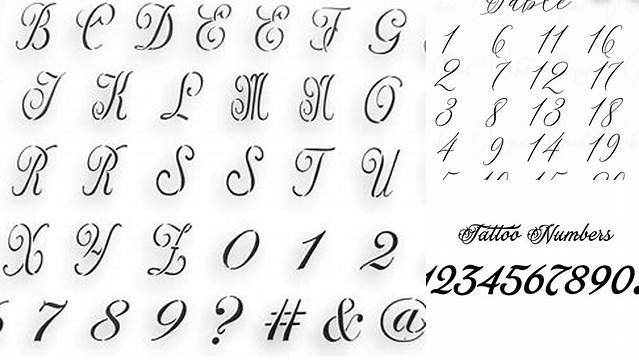
Tattoo Fonts: Cursive Numbers Design Ideas
Hey guys! Planning to get inked? Choosing the right tattoo fonts cursive numbers is crucial to making your tattoo stand out. This guide dives deep into everything you need to know, from selecting the perfect font style to understanding the nuances of cursive numbers in tattoo designs. Let’s get started!
1. Understanding the Popularity of Cursive Fonts in Tattoos
Cursive fonts are super popular for tattoos because they bring a touch of elegance and flow. Think about it: a name, a date, or a meaningful quote rendered in beautiful, flowing script—it just adds a certain je ne sais quoi. Cursive fonts mimic handwriting, making each tattoo feel personal and unique. The loops, curves, and connections between letters create a visually appealing design that can be both subtle and striking. When choosing tattoo fonts cursive numbers, consider the overall aesthetic you're aiming for. Do you want something delicate and refined, or bold and eye-catching? The right cursive font can make all the difference. Moreover, cursive fonts allow for creative flourishes and embellishments, adding extra character to your tattoo. Whether it's a simple heart at the end of a word or an elaborate scroll design, cursive fonts offer endless possibilities for personalization. So, if you're looking for a tattoo style that's timeless, elegant, and deeply personal, cursive is definitely the way to go.
2. Selecting the Right Cursive Font for Your Tattoo
Okay, so you're sold on cursive, but how do you pick the perfect font? First, think about readability. A super fancy, swirly font might look amazing, but if nobody can read it, what's the point? Opt for a font that balances aesthetics with clarity. Consider the size of your tattoo as well. A small tattoo needs a simpler font, while a larger piece can handle more intricate designs. Also, think about the placement of your tattoo. A cursive font that looks great on your wrist might not work as well on your back. When exploring tattoo fonts cursive numbers, pay attention to the thickness of the lines. Thicker lines tend to hold up better over time, especially for smaller tattoos. Don't be afraid to try out different fonts and see how they look on your skin using temporary tattoos or digital mockups. This will give you a better idea of how the font will appear once it's permanently inked. Ultimately, the right cursive font should reflect your personality and style while remaining legible and visually appealing.
3. The Significance of Numbers in Tattoo Designs
Numbers in tattoos often carry deep personal meaning. Think about important dates—birthdays, anniversaries, or even significant historical events. Using tattoo fonts cursive numbers can add an extra layer of sophistication to these dates, transforming them into works of art. Numbers can also represent lucky numbers, significant ages, or even coordinates of a special place. The beauty of using numbers is their versatility; they can be incorporated into various designs, from minimalist styles to elaborate compositions. When choosing to include numbers in your tattoo, consider the context and how they relate to the overall design. Do they stand alone as the focal point, or do they complement other elements like names or symbols? The font you choose for your numbers should harmonize with the rest of the tattoo, creating a cohesive and visually pleasing result. Whether you're commemorating a loved one or celebrating a personal milestone, numbers offer a powerful way to tell your story through ink.
4. Cursive Numbers: A Stylish Alternative to Traditional Numerals
Let's be honest, regular numbers can sometimes look a bit plain. Cursive numbers, on the other hand, add a touch of flair and individuality to your tattoo. Instead of boring, blocky numerals, you get elegant, flowing shapes that are much more visually interesting. When considering tattoo fonts cursive numbers, think about how they can elevate the overall design of your tattoo. Cursive numbers can soften the harshness of traditional numerals, making your tattoo appear more artistic and less utilitarian. They also provide an opportunity to incorporate unique flourishes and embellishments, further personalizing your tattoo. Imagine a Roman numeral date rendered in a beautiful cursive script—it instantly becomes a statement piece. Cursive numbers are perfect for those who want to add a touch of sophistication and creativity to their tattoos, transforming simple numbers into stunning works of art. So ditch the boring numerals and embrace the beauty of cursive!
5. Combining Cursive Fonts and Numbers Effectively
Okay, now for the tricky part: combining cursive fonts and numbers in a way that looks amazing. The key is balance. You don't want the font and numbers to clash or compete for attention. Instead, they should complement each other, creating a harmonious and visually appealing design. When using tattoo fonts cursive numbers, consider the size and placement of each element. If you're using a cursive font for a name or quote, make sure the numbers don't overpower it. Conversely, if the numbers are the main focus, choose a font that enhances their impact without being too distracting. Pay attention to the spacing between the letters and numbers. Proper spacing can improve readability and prevent the tattoo from looking cluttered. Experiment with different layouts and arrangements until you find a combination that feels just right. Remember, the goal is to create a tattoo that is both meaningful and aesthetically pleasing, so take your time and don't be afraid to try new things.
6. Popular Cursive Fonts for Tattoos with Numbers
So, what are some popular cursive fonts that work well with numbers? Script fonts like Brush Script, Edwardian Script, and Kaufmann Script are always a hit. They offer a classic, elegant look that's perfect for names, quotes, and dates. For a more modern feel, consider fonts like Lobster, Great Vibes, or Pacifico. These fonts have a playful, contemporary vibe that works well with numbers and other design elements. When choosing tattoo fonts cursive numbers, think about the overall style you're aiming for. A traditional script font might be perfect for a memorial tattoo, while a modern sans-serif font could be ideal for a geometric design. Don't be afraid to mix and match fonts to create a unique and personalized look. Just make sure the fonts you choose complement each other and don't clash. With so many amazing cursive fonts available, you're sure to find the perfect one for your tattoo.
7. The Best Placement Ideas for Cursive Number Tattoos
Where you put your tattoo is just as important as the design itself. For cursive number tattoos, certain placements tend to work better than others. The wrist is a classic choice for smaller tattoos, offering a discreet yet visible location. The forearm is another popular option, providing more space for larger designs and allowing for greater detail. The back of the neck is a great choice for subtle, elegant tattoos, while the ribs offer a larger canvas for more elaborate pieces. When considering tattoo fonts cursive numbers, think about how the placement will affect the overall look of the tattoo. A delicate cursive font might get lost on a busy part of the body, while a bold font could look overwhelming on a smaller area. Consider your personal style and preferences when choosing a placement. Do you want a tattoo that's easily visible, or something more hidden and personal? Ultimately, the best placement is the one that feels right for you and complements your tattoo design.
8. Tips for Ensuring Readability of Cursive Tattoos
We've already touched on this, but it's worth repeating: readability is key! A beautiful cursive tattoo is useless if nobody can decipher it. To ensure your tattoo is legible, start by choosing a font that's easy to read. Avoid overly ornate or intricate fonts that can become blurry over time. When using tattoo fonts cursive numbers, pay attention to the spacing between the letters and numbers. Adequate spacing prevents the tattoo from looking cluttered and makes it easier to read. Consider the size of the tattoo as well. Smaller tattoos need simpler fonts with thicker lines to maintain readability. Finally, choose a skilled tattoo artist who understands how to apply cursive fonts effectively. A good artist can adjust the font size, spacing, and line thickness to ensure your tattoo remains legible for years to come. By following these tips, you can ensure your cursive tattoo is both beautiful and easy to read.
9. The Role of Tattoo Artists in Font Selection
Your tattoo artist is your partner in this process, guys! They have the experience and expertise to guide you in choosing the perfect font for your tattoo. Don't be afraid to ask for their advice and recommendations. A good tattoo artist can assess your skin type, tattoo placement, and design preferences to suggest fonts that will work best for you. They can also provide mockups of different fonts so you can see how they look on your skin before committing to a design. When discussing tattoo fonts cursive numbers, your artist can help you choose a font that complements your skin tone and won't fade or blur over time. They can also advise you on the best size and placement for your tattoo to ensure it remains legible and visually appealing. Trust your artist's judgment and work together to create a tattoo that you'll love for years to come.
10. Maintaining the Beauty of Your Cursive Number Tattoo
So, you've got your awesome new tattoo. Now what? Proper aftercare is essential for maintaining the beauty of your cursive number tattoo. Follow your tattoo artist's instructions carefully, and be sure to keep the tattoo clean and moisturized. Avoid exposing the tattoo to direct sunlight, which can cause fading. When using tattoo fonts cursive numbers, remember that smaller, more intricate designs may require extra care to prevent blurring. Consider using a tattoo-specific moisturizer to keep the skin hydrated and healthy. If you notice any signs of infection, such as redness, swelling, or discharge, contact your tattoo artist or a healthcare professional immediately. With proper care and maintenance, your cursive number tattoo will continue to look stunning for years to come.
11. Exploring Different Styles of Cursive for Number Tattoos
Did you know there are tons of cursive styles? From elegant scripts to bold calligraphy, the options are endless. Each style brings a unique vibe to your tattoo. For instance, a Spencerian script oozes old-world charm, perfect for vintage-inspired designs. Calligraphy, with its thick and thin strokes, adds a dramatic flair. When picking tattoo fonts cursive numbers, explore how each style meshes with your personality and the tattoo's theme. A modern, minimalist design might benefit from a clean, sans-serif cursive, while a romantic piece could shine with a flowing, ornate script. Don't be afraid to mix and match elements to create a truly bespoke tattoo.
12. How to Create a Custom Cursive Font for Your Tattoo
Want something truly unique? Consider crafting your own custom cursive font! This lets you express your individuality in every curve and flourish. Start by sketching out different letterforms, playing with loops, connections, and angles. Think about what makes your handwriting special and incorporate those elements. When designing tattoo fonts cursive numbers, keep readability in mind. Overly complex designs might look cool on paper but can become a blurry mess on skin. Work closely with your tattoo artist to refine your design, ensuring it translates well to a tattoo. They can offer advice on line thickness, spacing, and overall balance. A custom font guarantees a tattoo that's 100% you!
13. The Impact of Line Thickness on Cursive Number Tattoos
Line thickness is a game-changer in tattoo design. Thicker lines tend to hold up better over time, especially on areas prone to fading. They also create a bolder, more defined look. Thinner lines, on the other hand, can add a delicate, elegant touch. When deciding on tattoo fonts cursive numbers, consider the size and placement of your tattoo. A small, intricate design might benefit from thinner lines to avoid looking cluttered. A larger piece can handle thicker lines, adding depth and visual impact. Also, think about your skin type. Thicker lines might be a better choice for oily skin, while thinner lines can work well on drier skin. Your tattoo artist can guide you on the best line thickness for your specific tattoo.
14. Incorporating Symbols with Cursive Number Tattoos
Why not add some extra oomph to your tattoo with symbols? A heart, star, or infinity symbol can amplify the meaning behind your numbers. Imagine a birthday date intertwined with a delicate floral motif or an anniversary etched alongside an infinity symbol. When integrating symbols with tattoo fonts cursive numbers, ensure they harmonize with the overall design. The font, numbers, and symbols should complement each other, creating a cohesive and visually pleasing piece. Consider the size and placement of the symbols. They shouldn't overpower the numbers or make the tattoo look cluttered. A well-placed symbol can elevate your tattoo from simple to extraordinary.
15. Understanding the Longevity of Cursive Tattoo Inks
The type of ink used can significantly impact the longevity of your tattoo. High-quality inks tend to resist fading and blurring better than cheaper alternatives. Black ink generally lasts longer than colored inks, but advancements in tattoo technology have improved the durability of colored inks as well. When discussing tattoo fonts cursive numbers with your artist, ask about the types of ink they use and their reputation for longevity. Also, consider your lifestyle. Sun exposure can accelerate fading, so protect your tattoo with sunscreen. Proper aftercare, including moisturizing and avoiding harsh chemicals, can also help preserve the vibrancy of your ink. A little extra care can keep your cursive number tattoo looking fresh for years to come.
16. Cursive Number Tattoos for Memorials and Remembrance
Tattoos can be a powerful way to honor loved ones who have passed away. Cursive number tattoos, featuring birthdates, death dates, or other significant numbers, can serve as a lasting tribute. The flowing script adds a touch of elegance and reverence to these memorial pieces. When designing tattoo fonts cursive numbers for a memorial, consider incorporating elements that represent the person you're honoring, such as their favorite flower or a meaningful symbol. Choose a font that reflects their personality and style. A well-crafted memorial tattoo can provide comfort and serve as a constant reminder of the love and memories you shared.
17. The Art of Spacing in Cursive Number Tattoo Designs
Spacing is crucial for readability and visual appeal. Too little spacing can make your tattoo look cluttered and difficult to decipher. Too much spacing can make it look disjointed. The key is to find the perfect balance. When designing tattoo fonts cursive numbers, pay close attention to the spacing between the letters, numbers, and any accompanying symbols. Ensure that each element has enough breathing room to stand out without being isolated. Your tattoo artist can help you adjust the spacing to achieve the desired effect. Proper spacing can transform a good tattoo into a great one.
18. How Skin Tone Affects the Appearance of Cursive Tattoos
Your skin tone can influence how your tattoo appears. Lighter skin tones generally allow for a wider range of ink colors, while darker skin tones may require bolder lines and darker inks to ensure visibility. When choosing tattoo fonts cursive numbers, consider how the font will look against your skin. Delicate, thin fonts might get lost on darker skin tones, while bolder, thicker fonts can provide better contrast. Your tattoo artist can advise you on the best ink colors and line thicknesses for your specific skin tone. They can also create test patches to show you how the tattoo will look before you commit to the final design.
19. Avoiding Common Mistakes in Cursive Number Tattoos
Nobody wants a tattoo they regret! To avoid common pitfalls, do your research, choose a skilled artist, and take your time with the design process. Avoid trendy fonts that might look dated in a few years. Don't overcrowd the design with too many elements. And always double-check the spelling and numbers before getting inked. When considering tattoo fonts cursive numbers, make sure the font is legible and that the numbers are accurate. A little planning can go a long way in preventing tattoo regrets.
20. The Future Trends in Cursive Tattoo Designs
Tattoo trends are constantly evolving. Right now, minimalist designs, geometric patterns, and watercolor effects are all the rage. In the world of cursive tattoos, expect to see more personalized fonts, mixed-media designs, and innovative placements. When exploring tattoo fonts cursive numbers, keep an eye out for emerging trends that resonate with your style. Consider incorporating these trends into your tattoo design to create a piece that's both timeless and contemporary.
21. Finding Inspiration for Your Cursive Number Tattoo
Stuck in a creative rut? No worries! There are tons of places to find inspiration. Browse tattoo websites, social media, and design blogs. Check out vintage books and calligraphy samples. Visit art galleries and museums. And don't be afraid to draw inspiration from your own life experiences. When seeking inspiration for tattoo fonts cursive numbers, pay attention to the fonts and designs that catch your eye. Collect images and ideas that you can share with your tattoo artist. The more inspiration you gather, the easier it will be to create a tattoo that's uniquely yours.
22. The Cost Factors of Getting a Cursive Number Tattoo
The cost of a tattoo can vary widely depending on several factors, including the size, complexity, placement, and the artist's experience. Simpler designs generally cost less than intricate ones. Smaller tattoos are typically cheaper than larger ones. And tattoos in hard-to-reach areas might command a higher price. When budgeting for tattoo fonts cursive numbers, get quotes from several artists and compare their prices. Don't base your decision solely on cost, though. Choose an artist whose style you admire and who has a good reputation for quality and hygiene.
23. Preparing for Your Cursive Number Tattoo Appointment
Getting a tattoo is a big deal! To ensure a smooth and enjoyable experience, prepare in advance. Get a good night's sleep, eat a healthy meal, and avoid alcohol and caffeine. Wear comfortable clothing that allows easy access to the tattoo area. Bring a book or music to keep you entertained during the session. And don't forget to bring a positive attitude! When preparing for your tattoo fonts cursive numbers appointment, discuss any concerns or questions you have with your artist. Follow their instructions carefully, and relax. Before you know it, you'll be sporting a brand new piece of art.
24. Aftercare Products for Cursive Number Tattoos
Choosing the right aftercare products is essential for proper healing. Look for gentle, fragrance-free soaps and moisturizers. Avoid products that contain alcohol, petroleum, or lanolin, as these can irritate the skin. Tattoo-specific aftercare products are often a good choice, as they're formulated to promote healing and prevent infection. When caring for tattoo fonts cursive numbers, apply a thin layer of moisturizer several times a day to keep the skin hydrated. Avoid picking or scratching the tattoo, and protect it from the sun. With proper aftercare, your tattoo will heal beautifully.
25. Touch-Ups and Cursive Number Tattoo Maintenance
Over time, tattoos can fade or blur, especially in areas that are exposed to the sun or friction. Touch-ups can restore the vibrancy and clarity of your tattoo. Most artists offer free or discounted touch-ups within a certain timeframe after the initial tattoo. When considering touch-ups for tattoo fonts cursive numbers, discuss your concerns with your artist. They can assess the tattoo and recommend the best course of action. Regular maintenance, including moisturizing and protecting the tattoo from the sun, can help prolong its life and minimize the need for touch-ups.
26. The Psychological Significance of Number Tattoos
Numbers can hold deep personal meaning. They can represent important dates, lucky numbers, or significant milestones. Getting a number tattoo can be a way to commemorate these moments and keep them close to your heart. When choosing tattoo fonts cursive numbers, consider the emotional significance of the numbers you're using. Choose a font that reflects the mood and meaning of the numbers. A memorial tattoo might call for a somber, elegant font, while a celebratory tattoo might benefit from a more playful, whimsical font.
27. Cursive Number Tattoos as a Form of Self-Expression
Tattoos are a powerful form of self-expression. They allow you to showcase your personality, beliefs, and values to the world. Getting a cursive number tattoo can be a way to express your individuality and tell your story. When designing tattoo fonts cursive numbers, choose elements that resonate with you personally. Consider the font, numbers, and any accompanying symbols. Let your tattoo be a reflection of who you are.
28. The Importance of Researching Tattoo Artists
Choosing the right tattoo artist is crucial. Look for an artist who specializes in the style you're after and who has a good reputation for quality and hygiene. Check out their portfolio, read reviews, and talk to previous clients. When researching artists for tattoo fonts cursive numbers, make sure they have experience working with cursive fonts and numbers. Ask to see examples of their work and discuss your design ideas with them. A little research can help you find an artist who will bring your vision to life.
29. Ethical Considerations in Tattooing
Ethical tattooing involves using safe and sterile practices, respecting the client's wishes, and providing honest and transparent information. Choose an artist who adheres to these ethical standards. When discussing tattoo fonts cursive numbers, make sure the artist is willing to work with you to create a design that you're comfortable with. Ask about their sterilization procedures and make sure they use single-use needles and equipment. Ethical tattooing ensures a safe and positive experience.
30. Legal Aspects of Getting a Tattoo